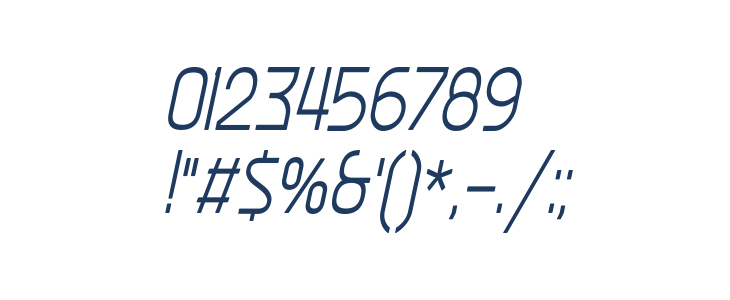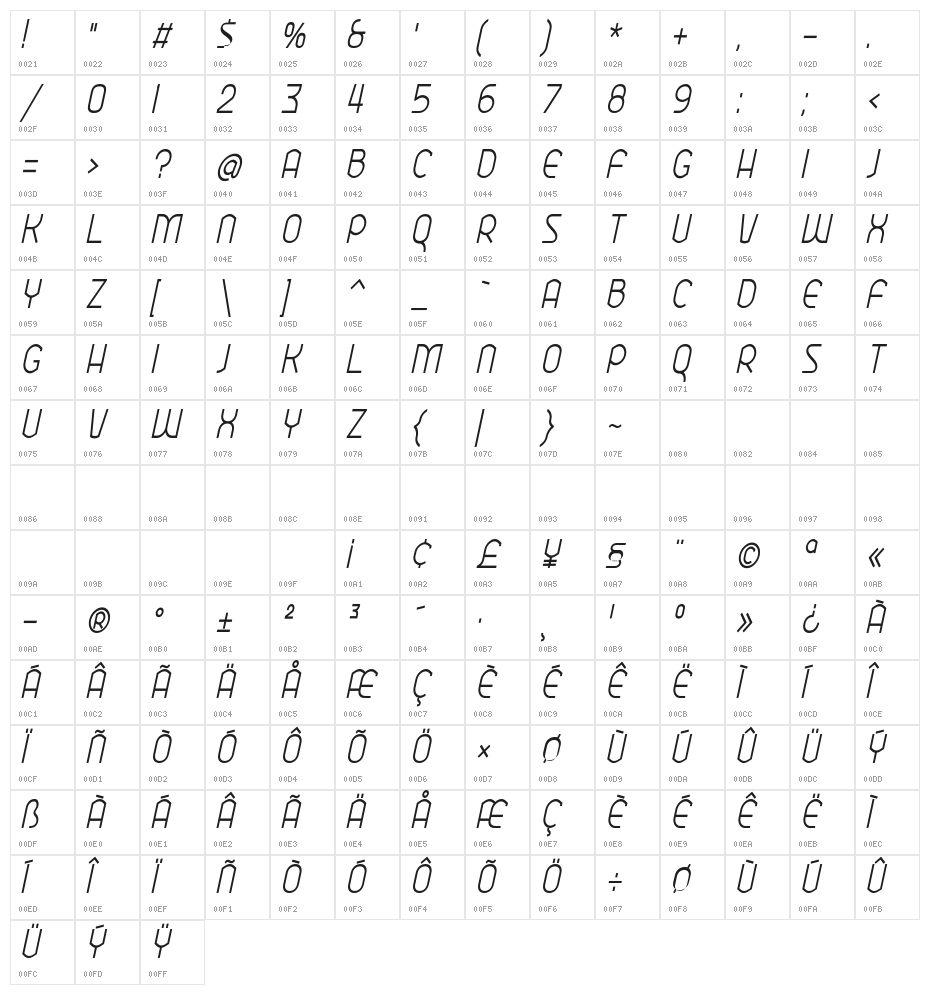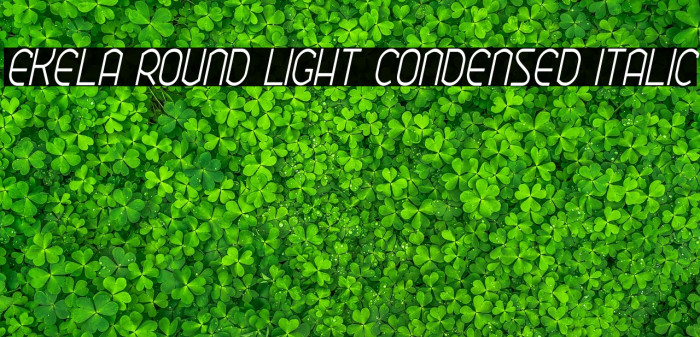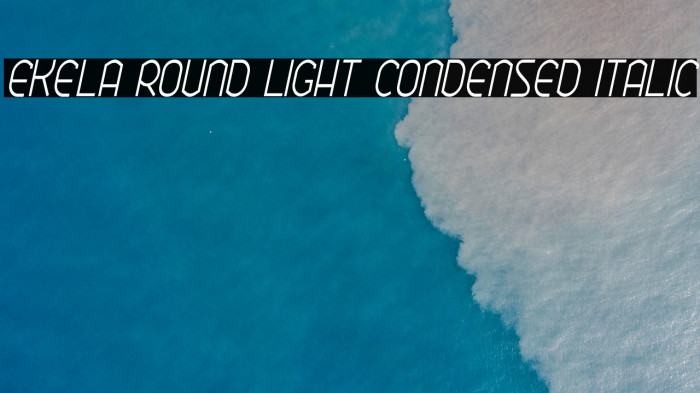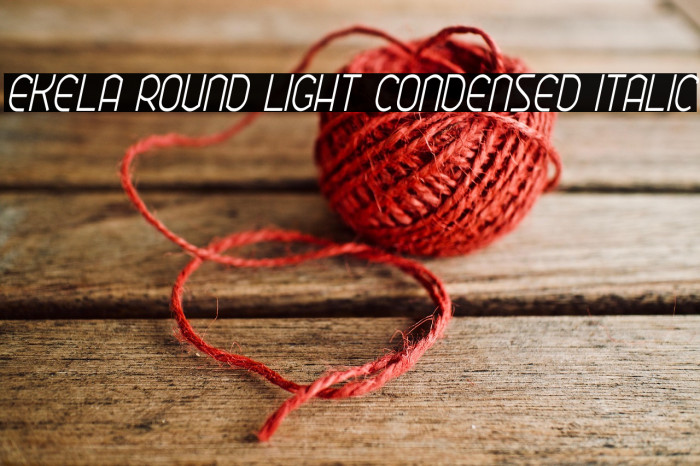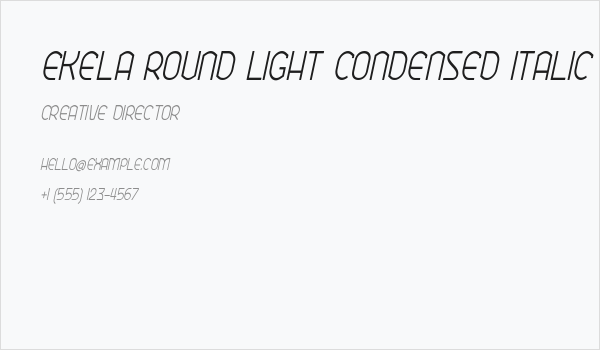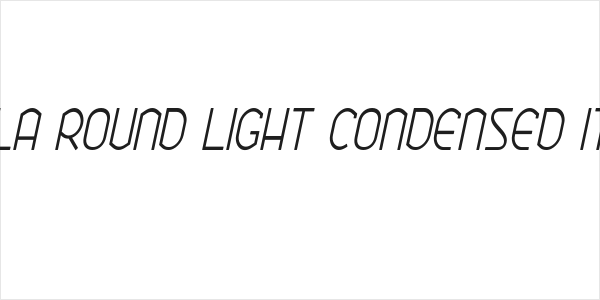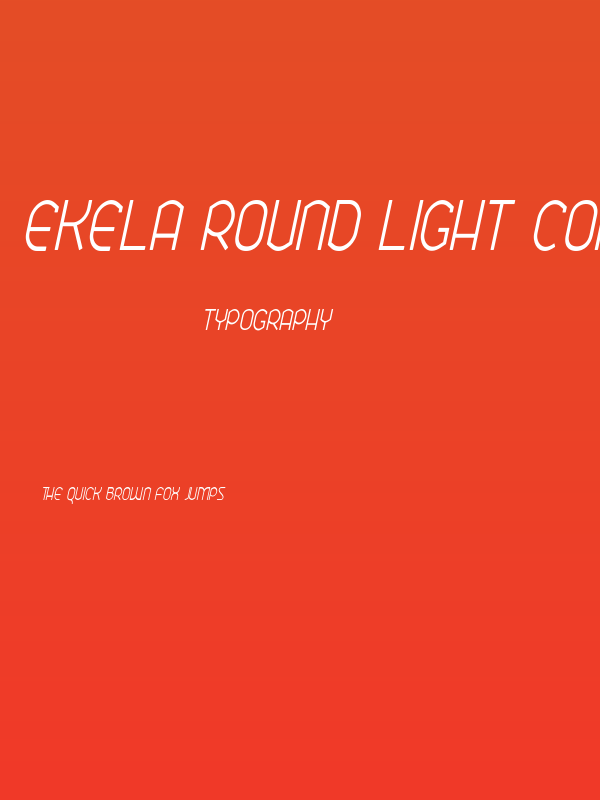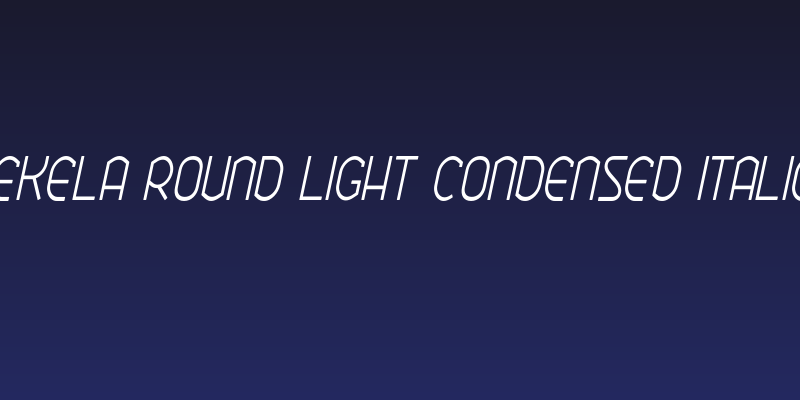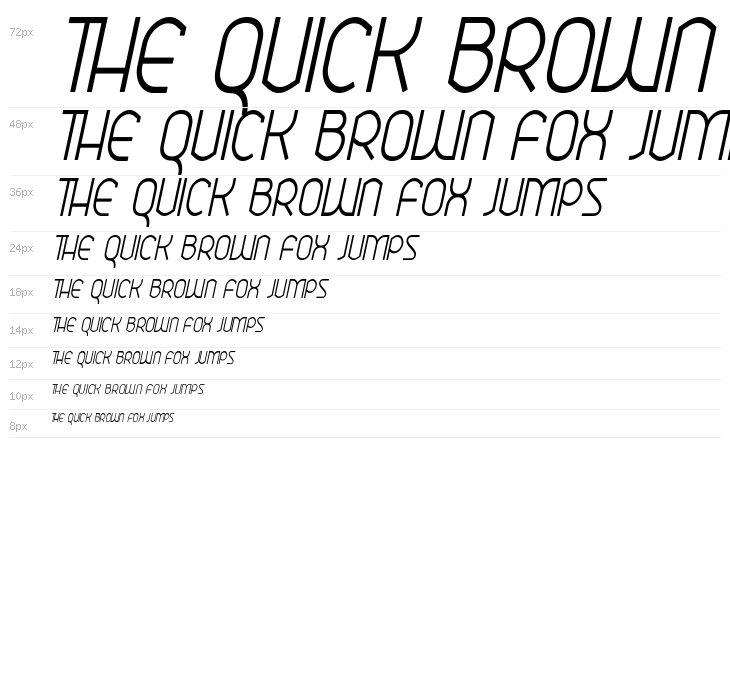
Ekela Round Light Condensed Italic Font
Ekela Round Light Condensed Italic Description
This font features a sleek and modern design with a rounded and condensed appearance. Its italic style adds a dynamic and forward-leaning character, making it suitable for contemporary and stylish applications. The letters are evenly spaced with a slight slant, providing a sense of movement and fluidity. The light weight of the strokes gives it an airy and elegant feel, while maintaining readability. The font's clean lines and geometric shapes make it versatile for various design projects, from digital interfaces to print media.
| Use Case | Headlines, Logos, Digital interfaces |
| Proposed Projects | Ideal for branding, digital interfaces, modern advertising, and editorial design. |